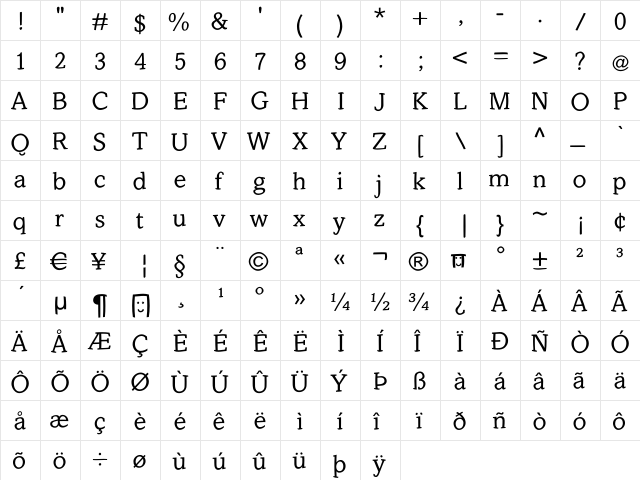
SlabStick Regular
Design Context for SlabStick Typeface
SlabStick features prominent, blocky serifs that give it a confident, grounded presence — equally at home in editorial settings and bold branding work.
Suited to magazines, political campaign materials, bold packaging, and any setting where authority matters.
Pro Tip: Use SlabStick for headlines and subheadings where its slab serifs can make an impression. It also holds up well in mid-size body copy thanks to its sturdy construction.